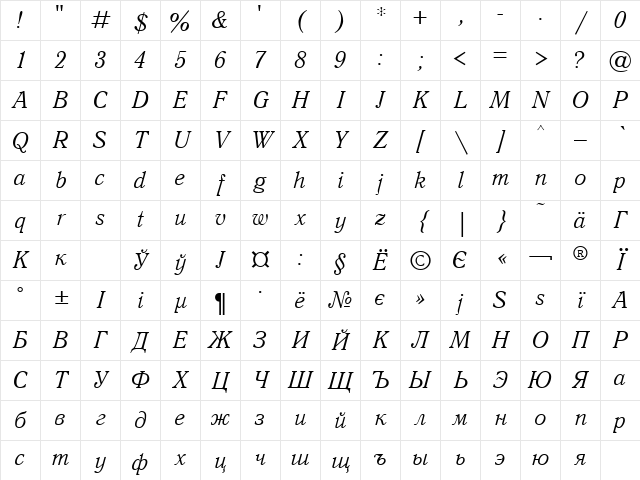
Complete Antiqua Italic Cyrillic@ glyph index. Displaying only characters natively supported by Antiqua Italic Cyrillic@ font.
Antiqua is a composed and adaptable typeface that performs quietly and consistently across a wide range of design contexts. The slanted form adds forward momentum and visual energy.
Pro Tip: Use Antiqua for emphasis, pull quotes, and subheadings where its slanted energy can add rhythm to the layout.